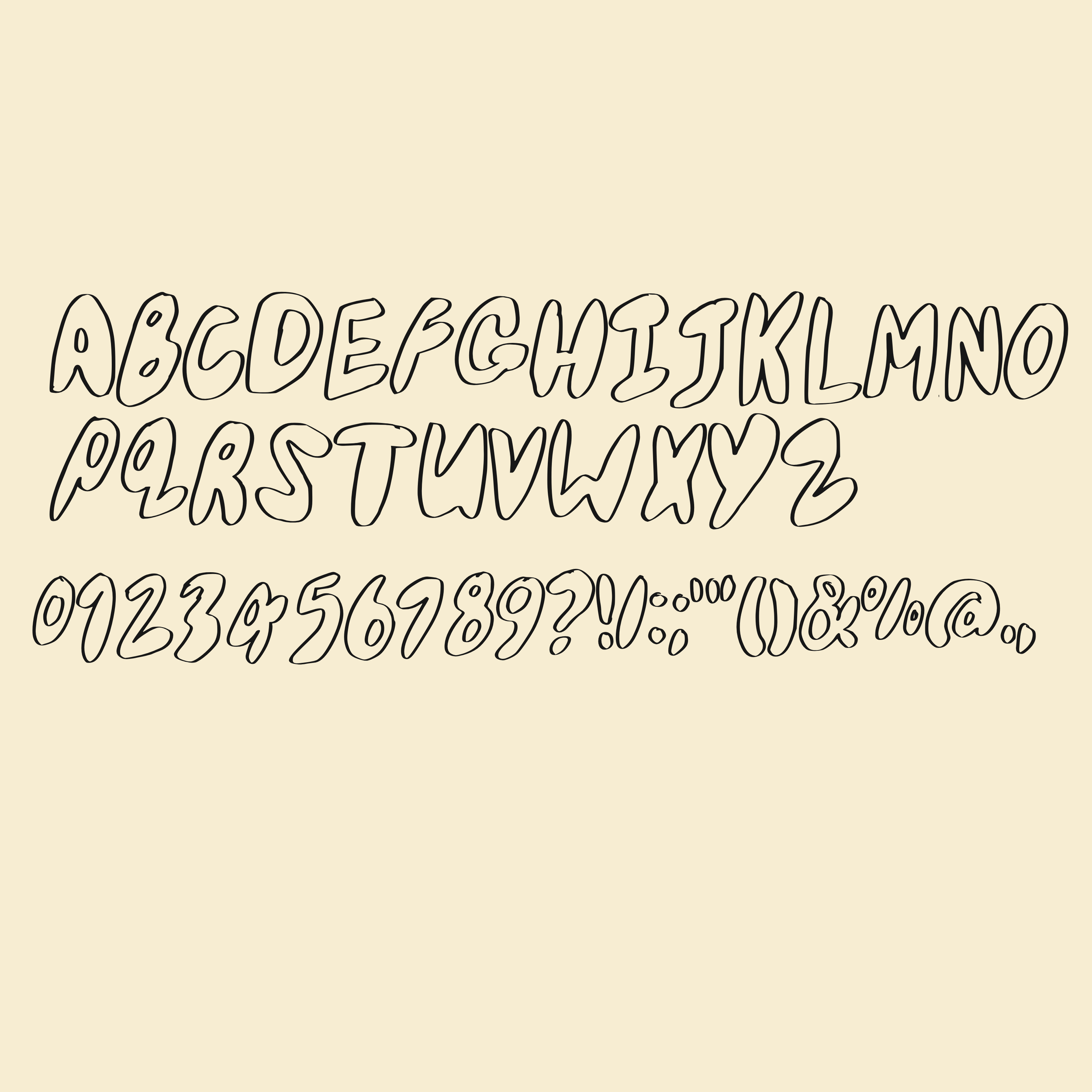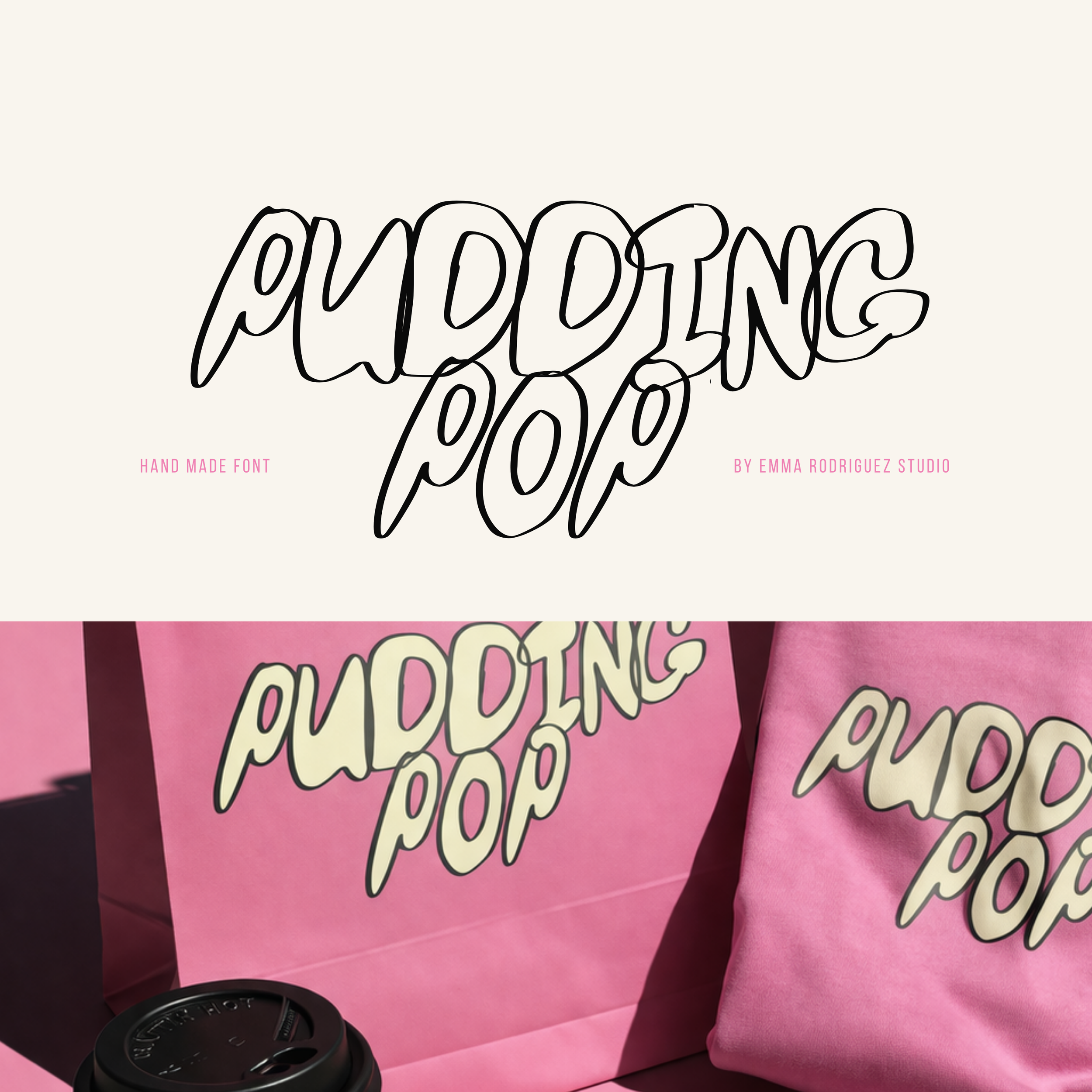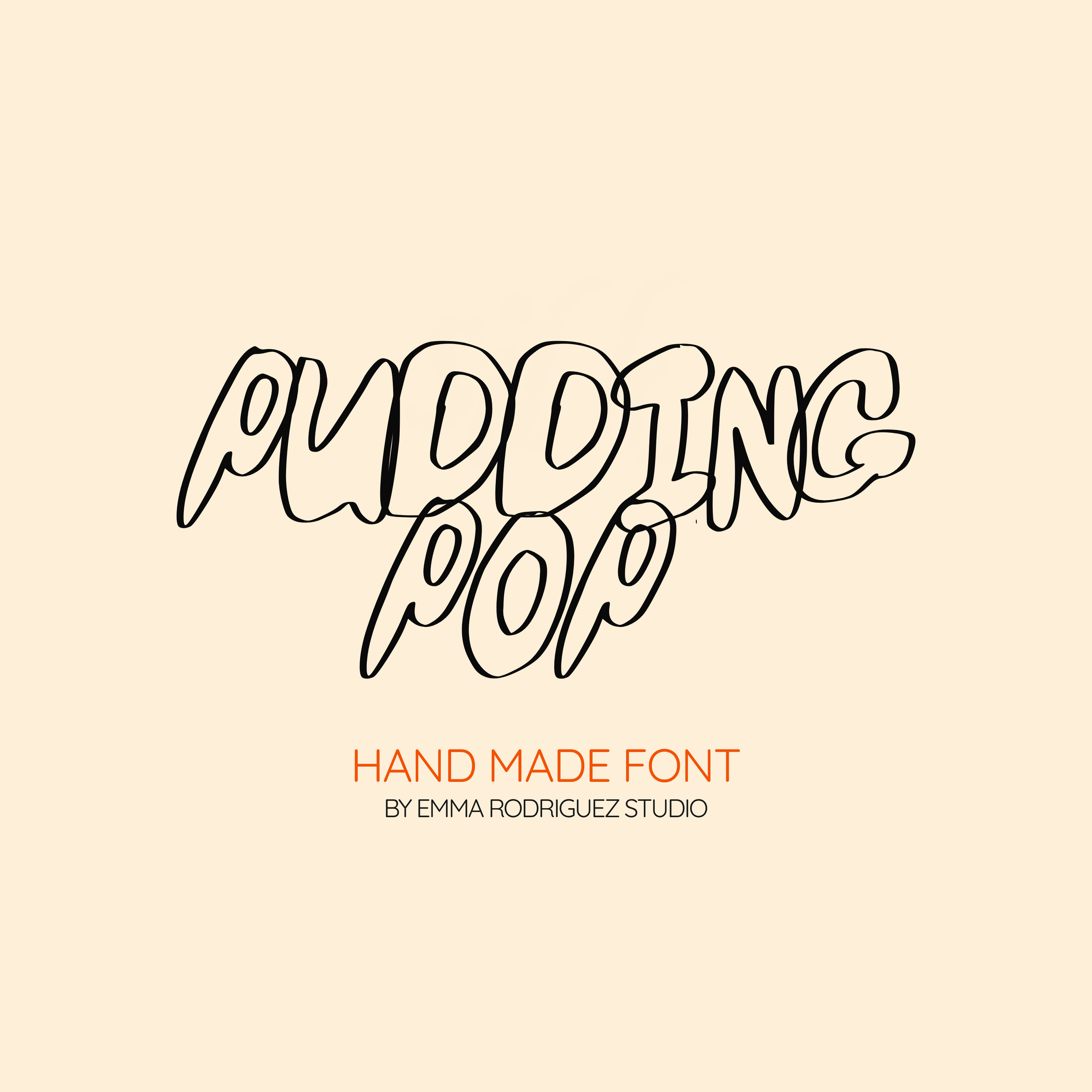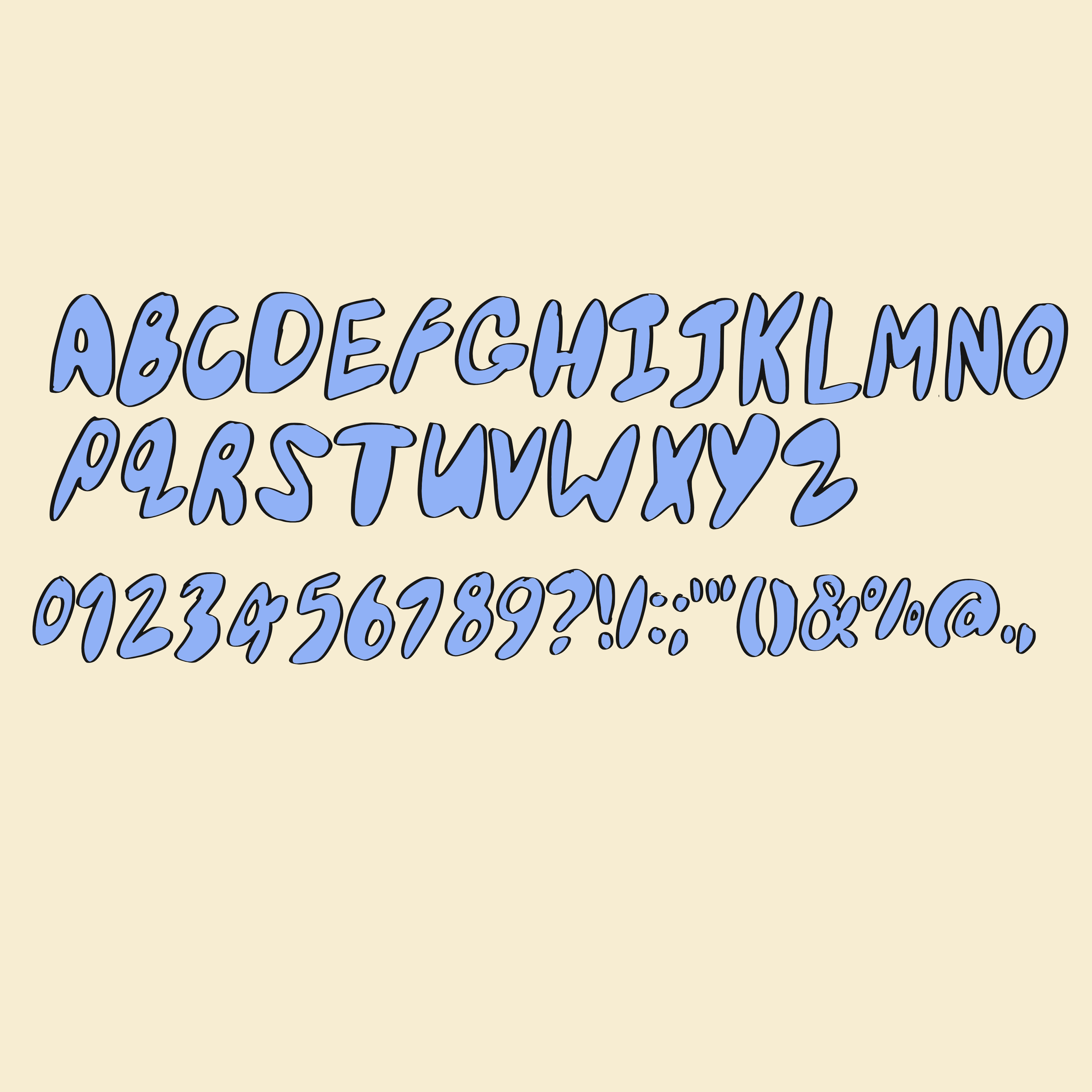
Pudding Pop Font - Bubble Outline Type
Meet Pudding Pop, a bold, playful outline font that leans into soft curves and exaggerated shapes. It takes chunky bubble lettering and strips it back to a clean outline, creating something that feels light, fun, and full of personality while still making a strong visual impact.
Still simple. Still readable. Just bouncier, looser, and way more playful.
This mixed case typeface is built with smooth, rounded lines and an airy outline style that gives it a hand drawn, slightly wobbly feel. The letters are intentionally unaligned to add movement and rhythm, giving your designs a more relaxed and organic look.
Perfect when you want something fun, quirky, and attention grabbing without feeling too heavy.
• Mix of uppercase and lowercase letters
• Numbers and basic punctuation
Use it for:
• Edgy branding
• Music artwork
• Bold posters
• Zines
• Statement quotes
• Sticker designs
• Streetwear graphics
• Digital planners with attitude